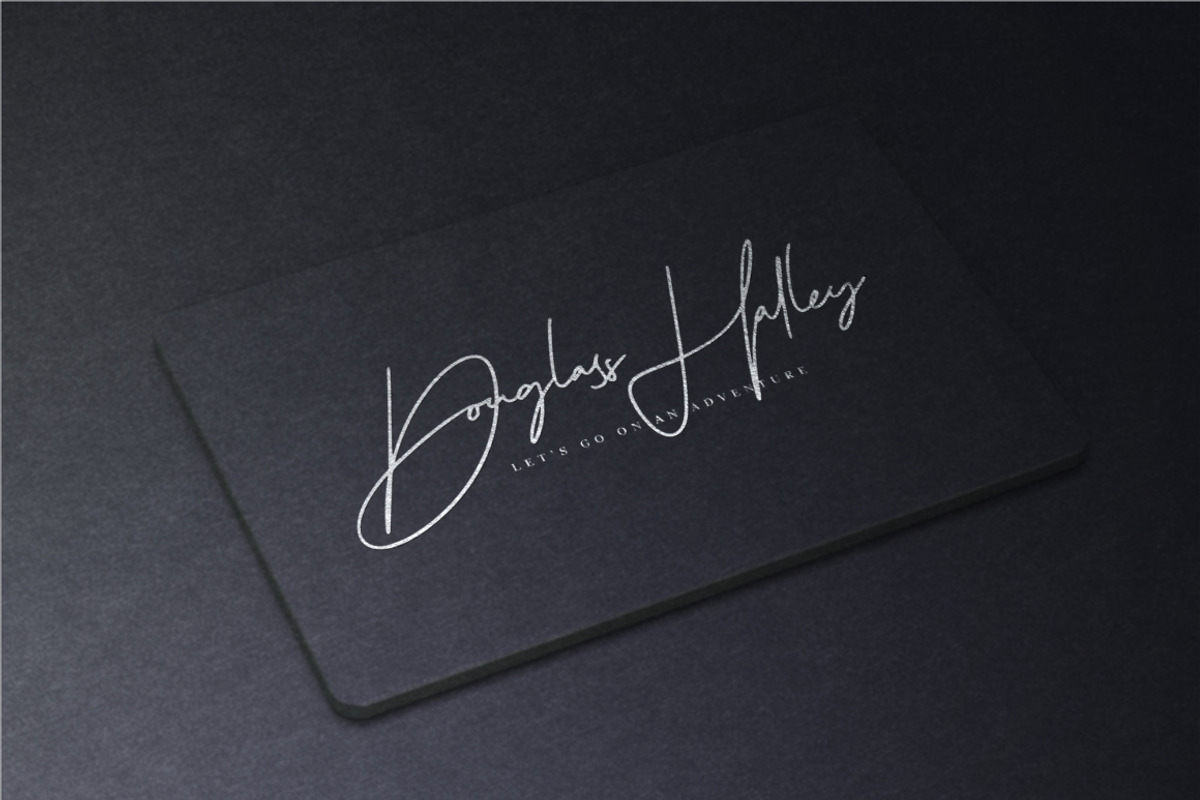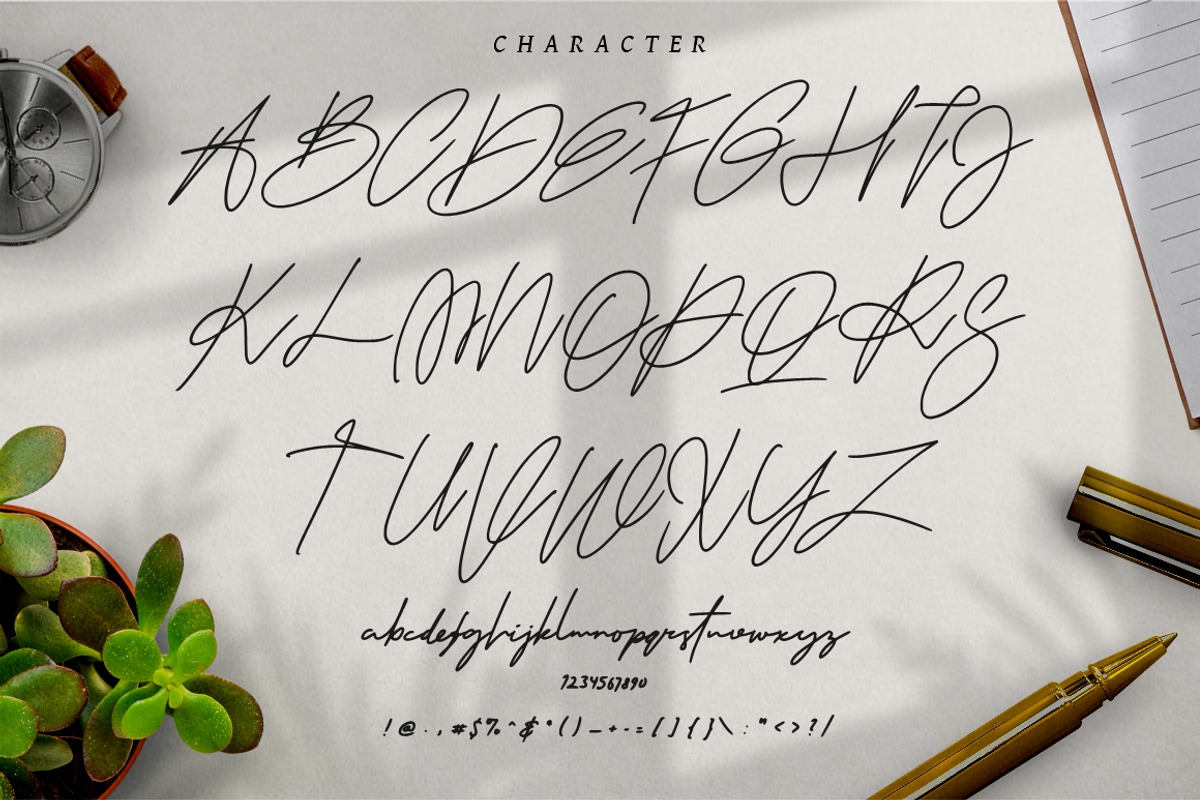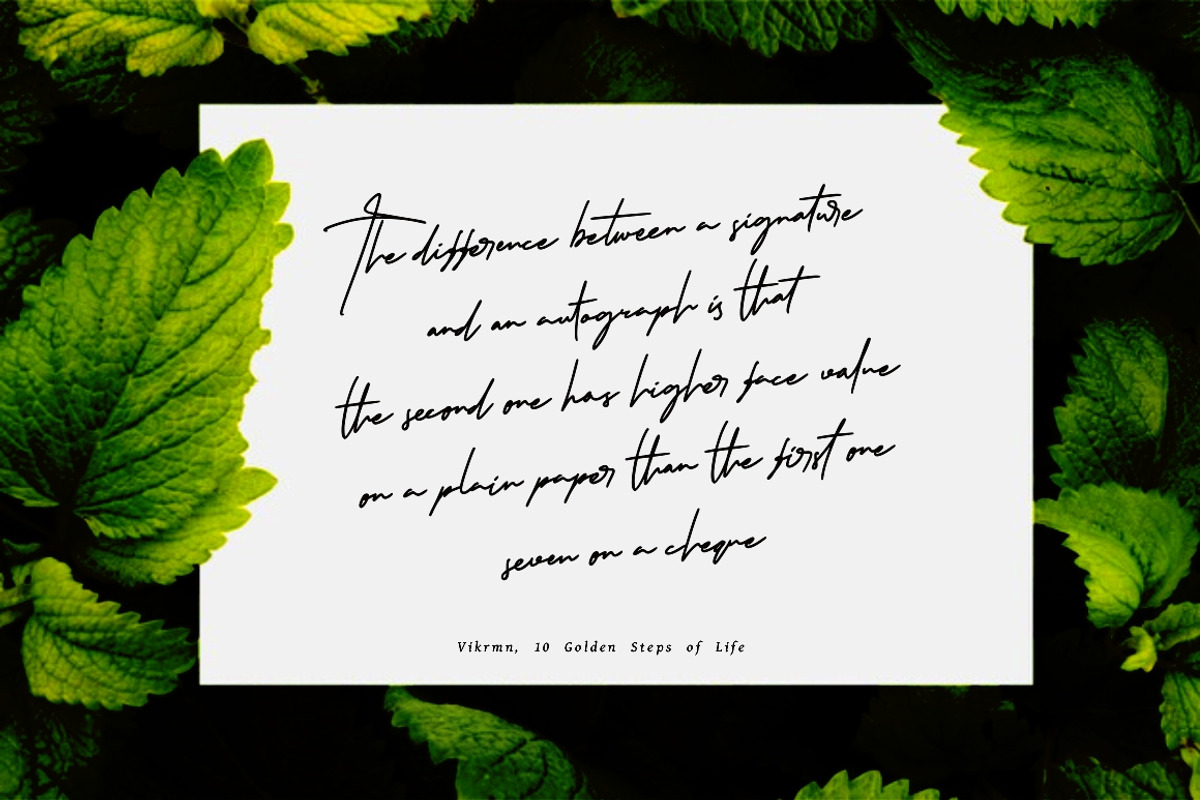
The Scientist Signature
The Scientist is a modern handwritten signature with natural and stylish flow. This font has been designed from recreate natural handwritten text, include 77 custom ligature. The Scientist best uses for signature, heading, cover, branding, invitation, label, poster, logos, quotes, product packaging, header, merchandise, social media & greeting cards and many more.
- Number, Punctuation And Symbols